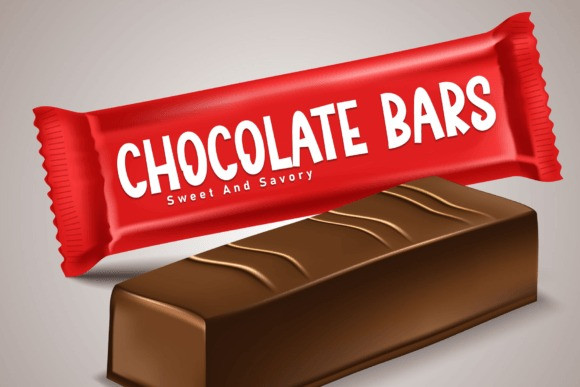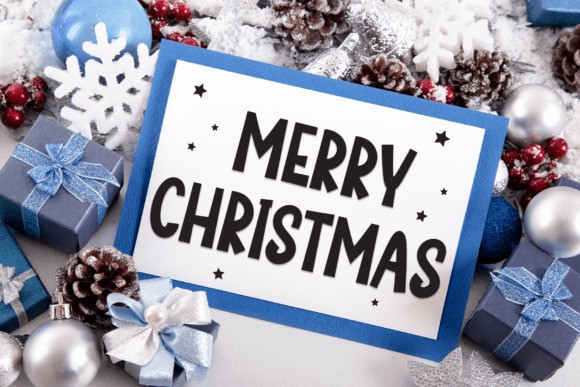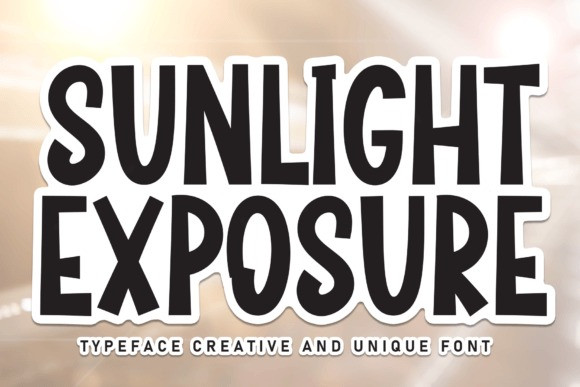
Sunlight Exposure Font
Sunlight Exposure Font is a sweet and friendly handwritten font. Its natural and unique style makes it incredibly fitting to a large pool of designs. The only limit is your imagination!